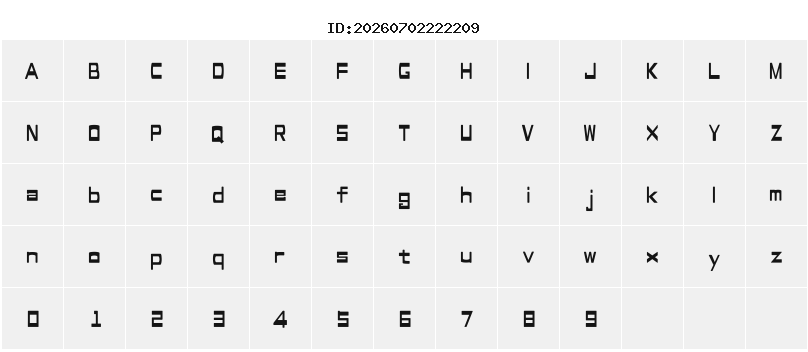
• Font Name: 222-上首阿呆体
• Manufacturer: 上首造字
222-上首阿呆体.ttf is a modern, elegant sans-serif font designed for ultimate readability and visual harmony. Perfect for branding, headlines, web design, and print materials.